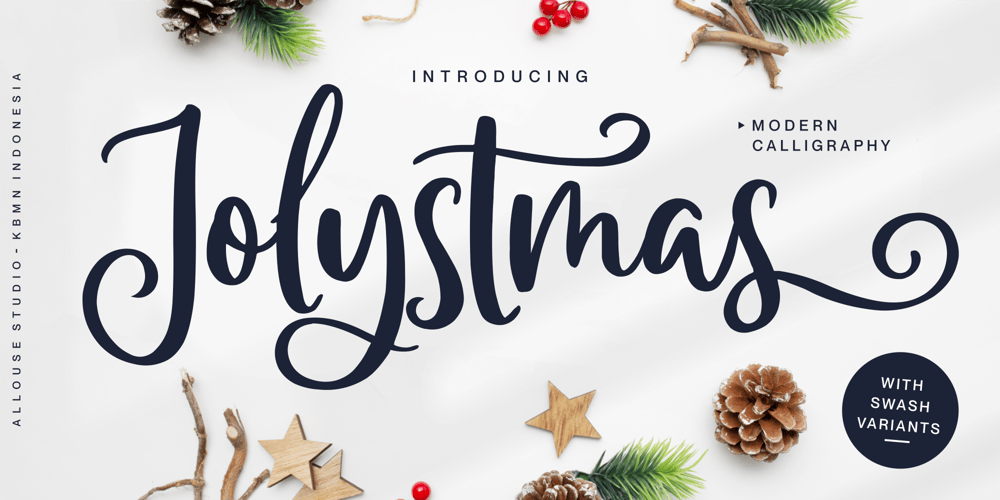
Jolystmas Font Family was designed by Fachrizal Yusuf and published by Allouse Studio. Jolystmas contains 1 styles and family package options. Proudly Presenting, Jolystmas a Modern Calligraphy Font.Jolystmas is perfect for any titles, logo, product packaging, branding project, megazine, social media, wedding, or just used to express words above the background.Jolystmas also come with Multi-Lingual Support.Enjoy the font, feel free to comment or feedback, send me PM or email. Thank You!